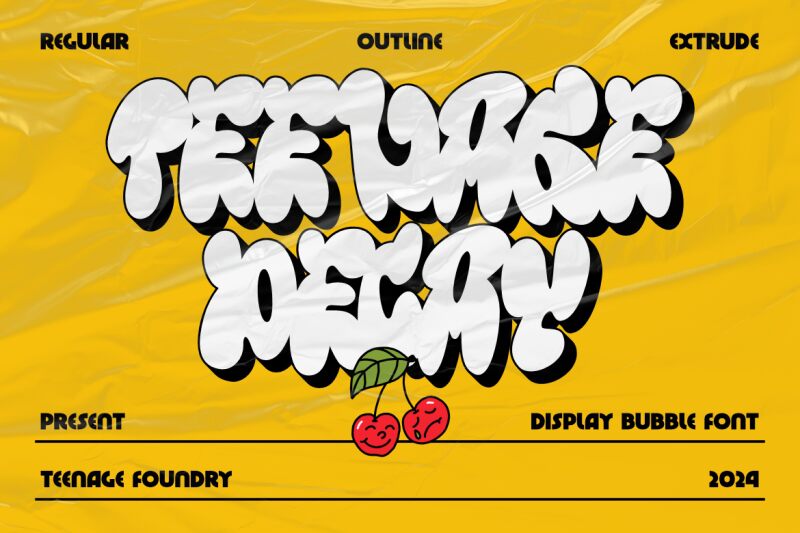
Teenage Decay font by Teenage Foundry is a free groovy font with an expressive and lively personality. The playful typeface is youthful and contemporary with a dynamic and bubbly feel to it. Its overall aspect is impactful and energetic, capturing attention right away. Inspired by psychedelic styles from the past, all graphic works relying heavily on typography will be remembered for their lettering choice.
Each character is carefully crafted with distinctive personalities, making Teenage Decay ideal for exciting designs. Choose it for titles, posters, album covers, packaging, magazine covers, logo projects, and all sorts of branding style. Add it to merch designs, print or publish it for book covers, or enter it in editorial content for impactful or fun projects.